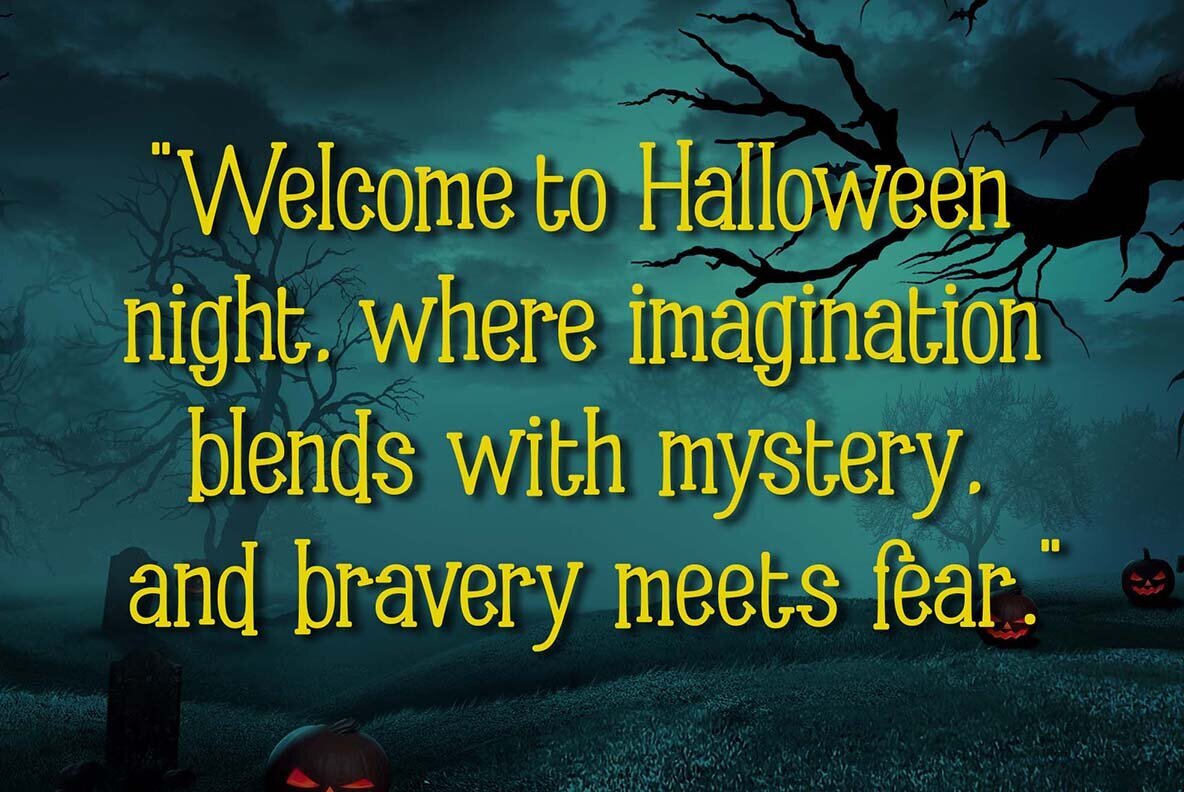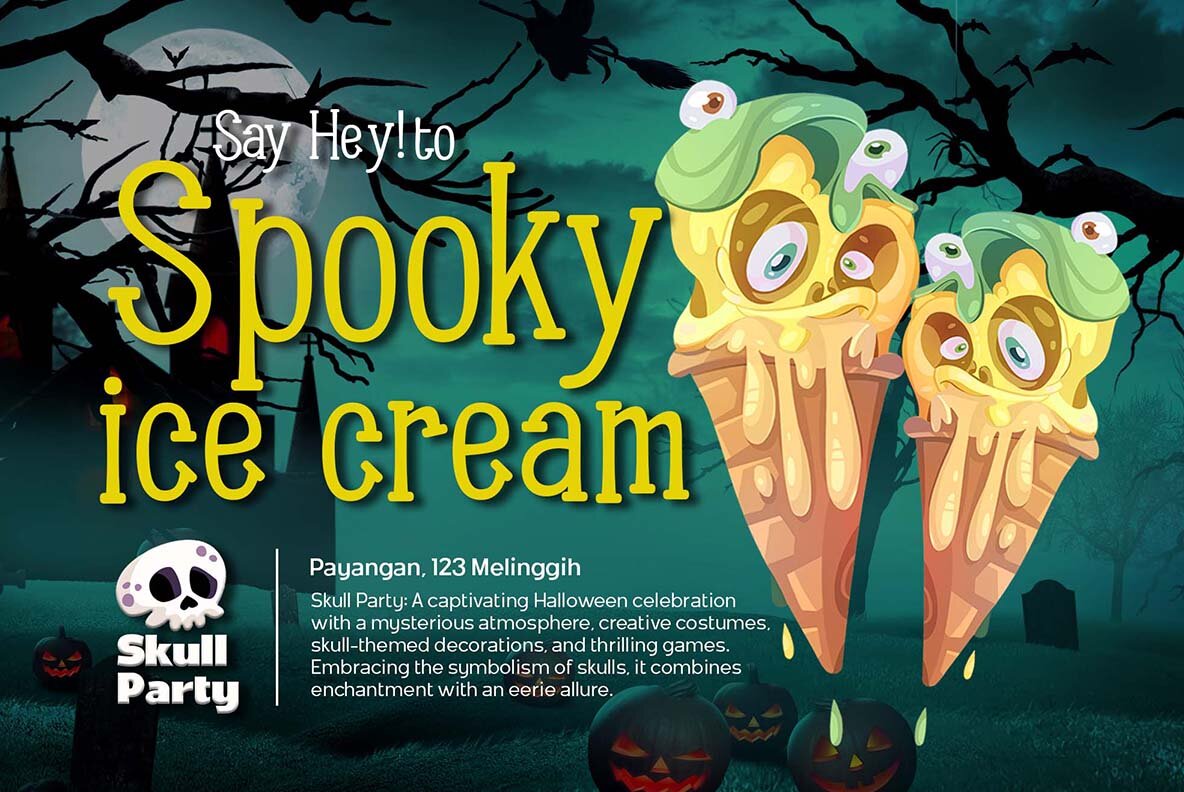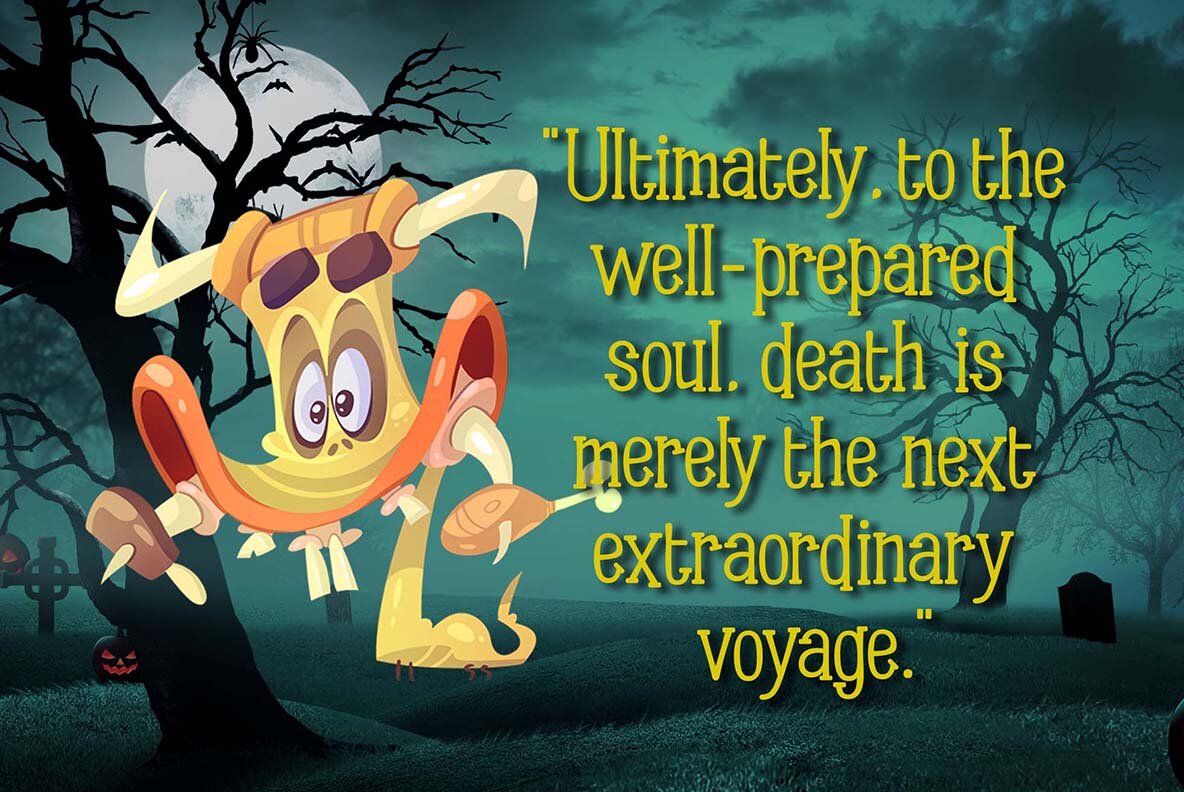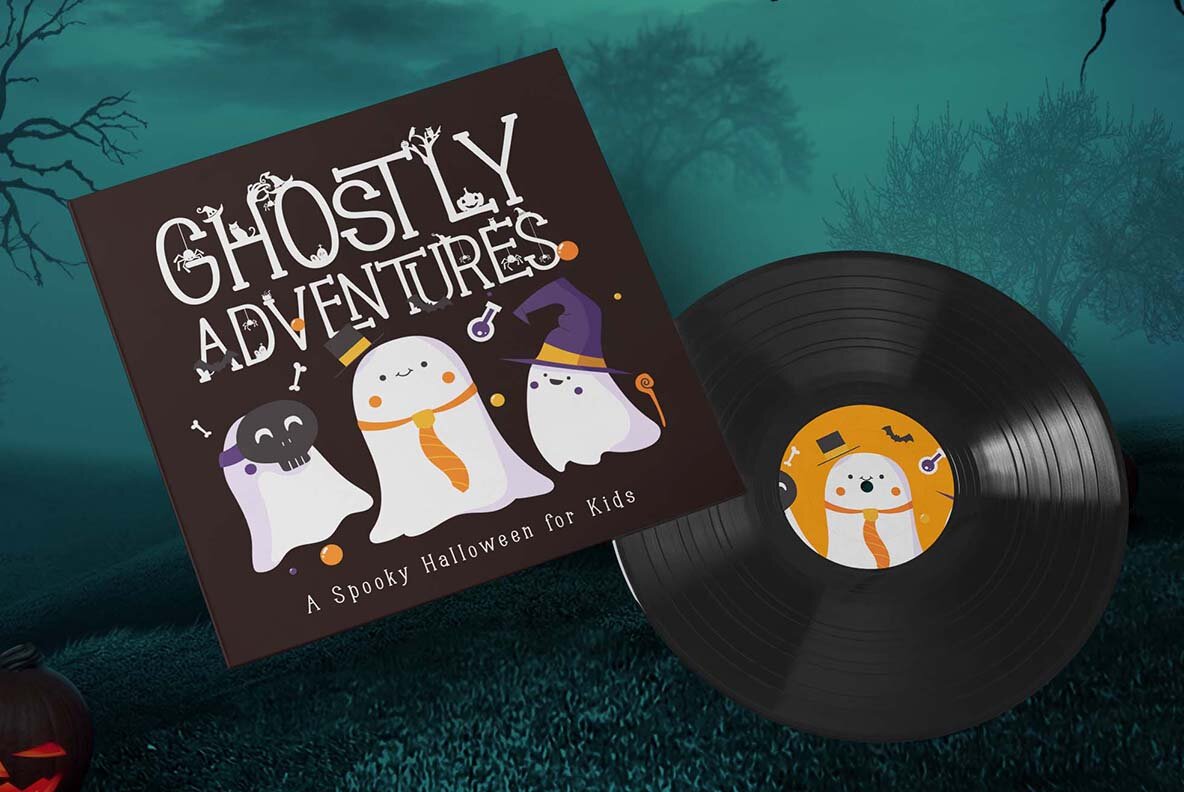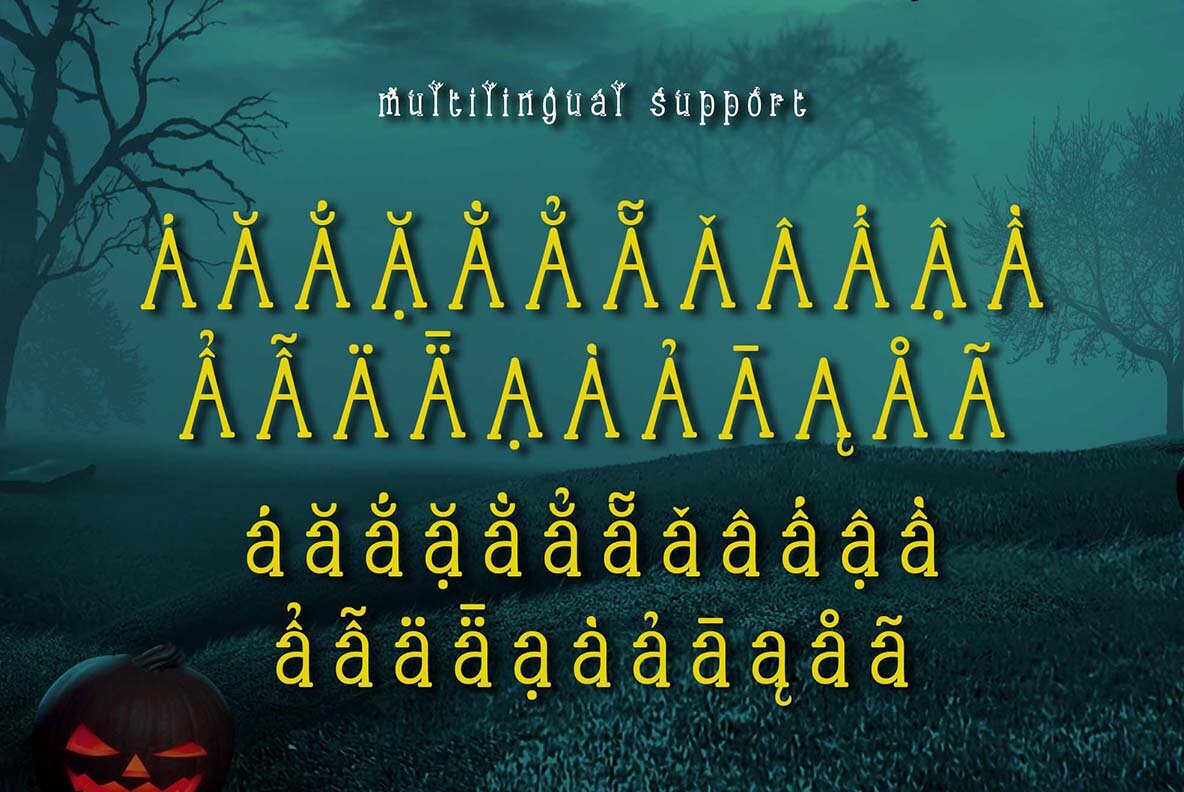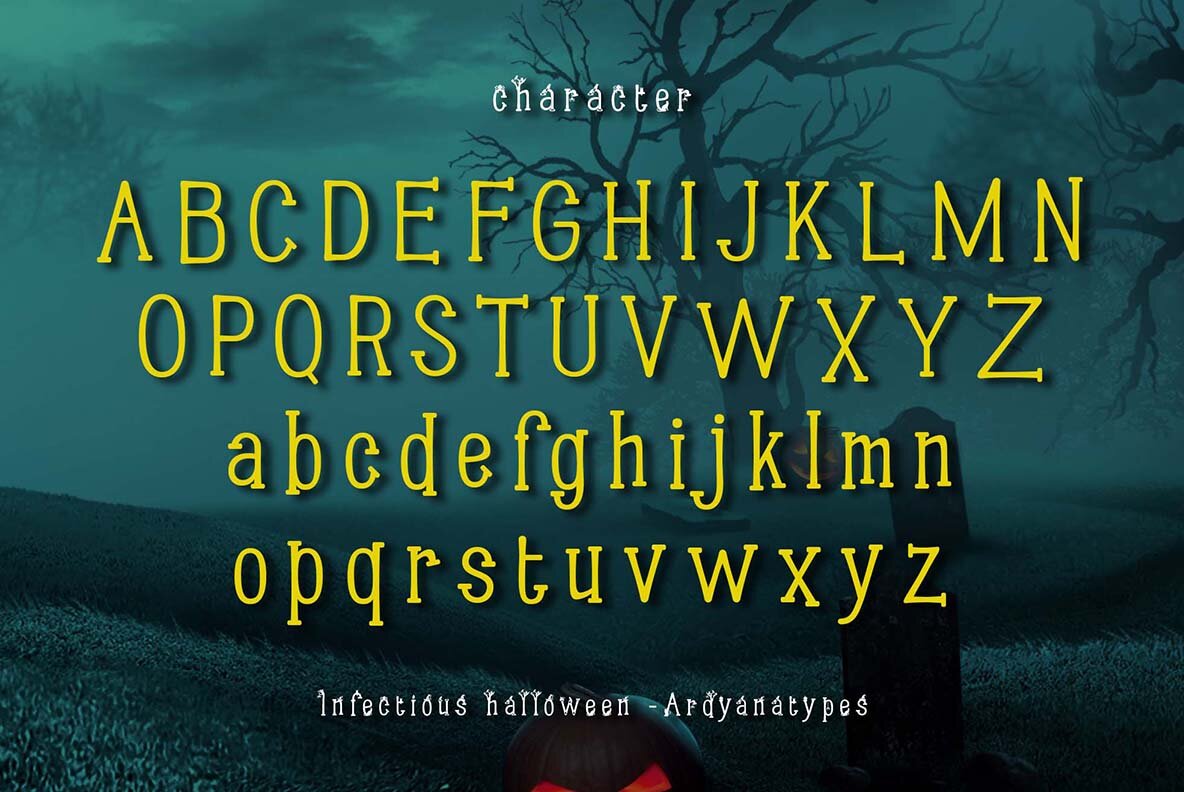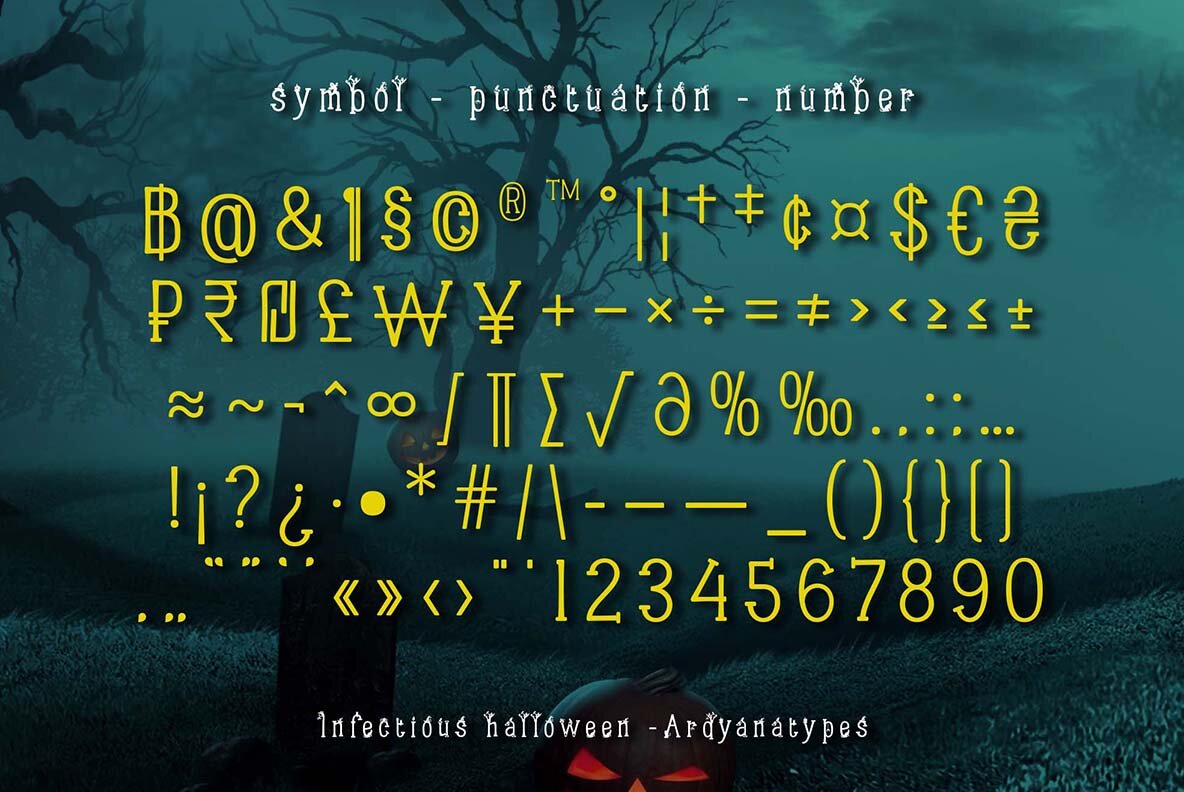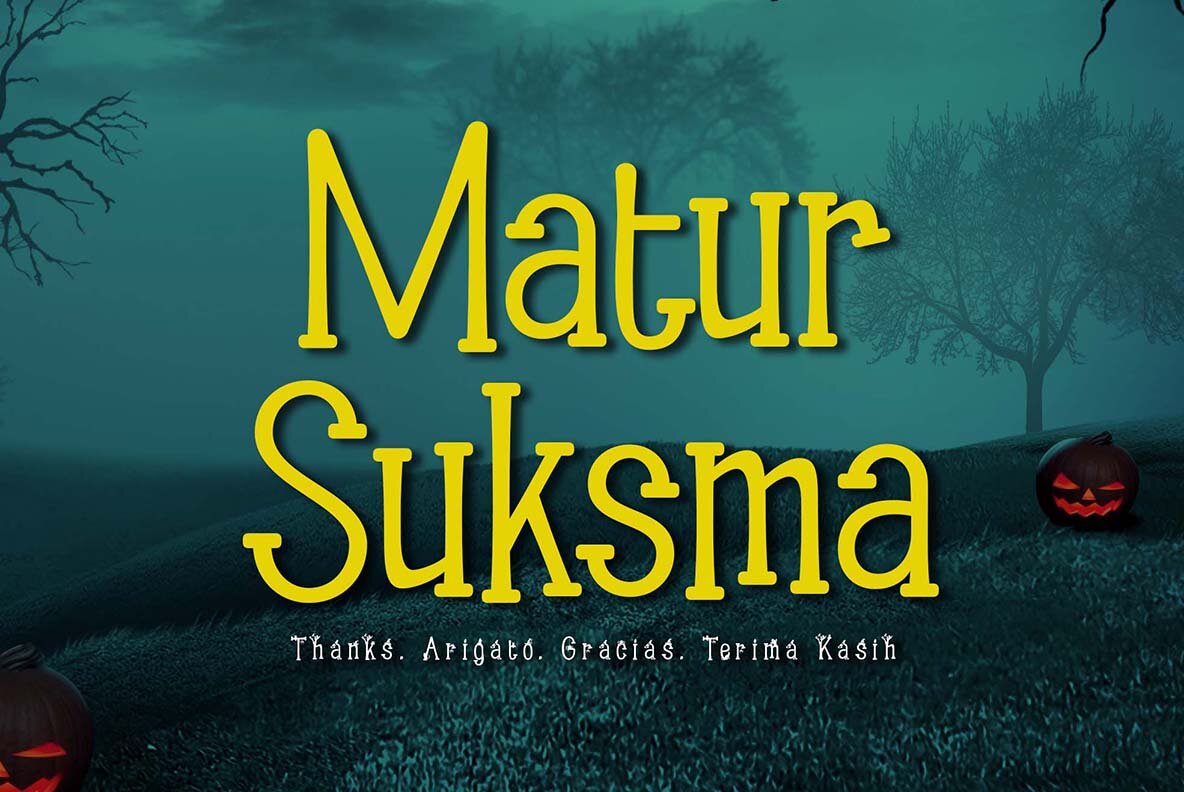
Infectious Halloween Font
Infectious Halloween Regular
Infectious is a Halloween themed font with unique shapes that invite curiosity. Each letter is inspired by ancient magical symbols, with sharp strokes and curved lines that create a mysterious atmosphere. The font is not only visually appealing, but also interactive thanks to its advanced OpenType feature. Users can combine letters, slashes, and ligatures to create creative and unexpected looks.